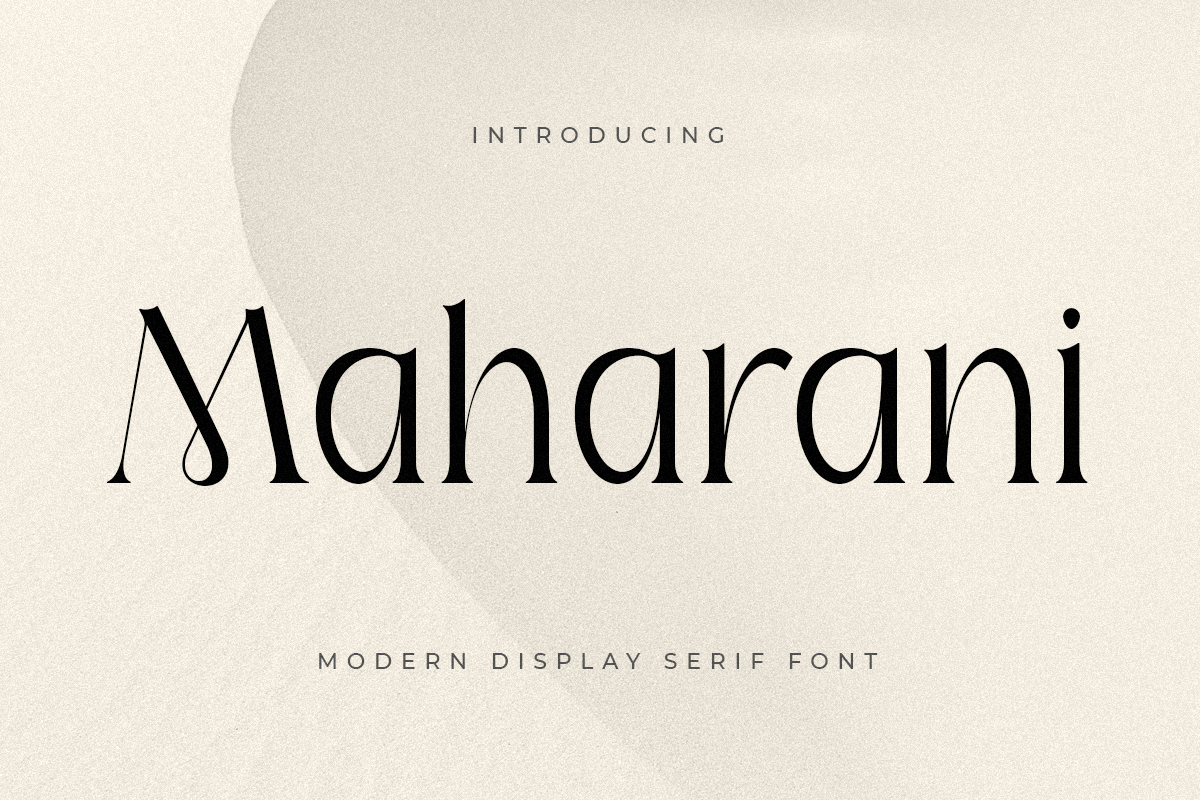
Maharani
A Serif font that we created special for elegant branding needs, with extra ligature and alternates in unique shape will be ready to add value of your brand. It so nice to leverage designer or product owner that need solutions to make their design look more stylish and modern. And specially for Maharani font, We prepared any ligatures characters to help you create unlimited variations for your creative needs.
Maharani Serif font ready with:
Any options to get creative variations
Preview as a inspirations that you can do with Maharani font